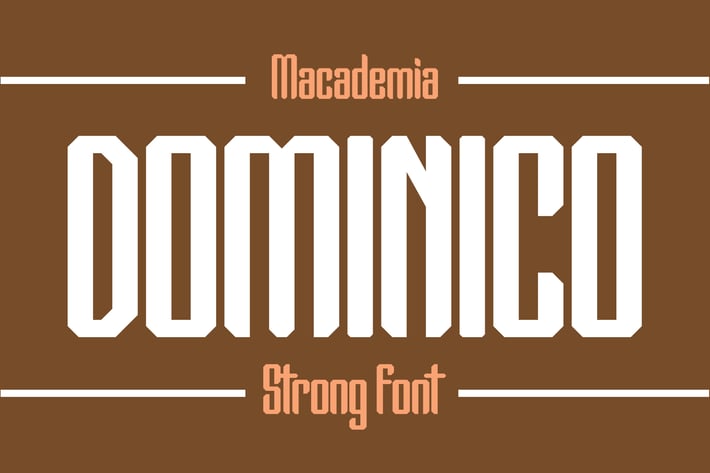
Dominico - Strong Font
Macademia
Dominico is perfect to use for Logotype, Letterhead, Poster, Apparel Design, Label and etc.
The alternative characters were divided into several features such as Stylistic Alternates and Ligature.